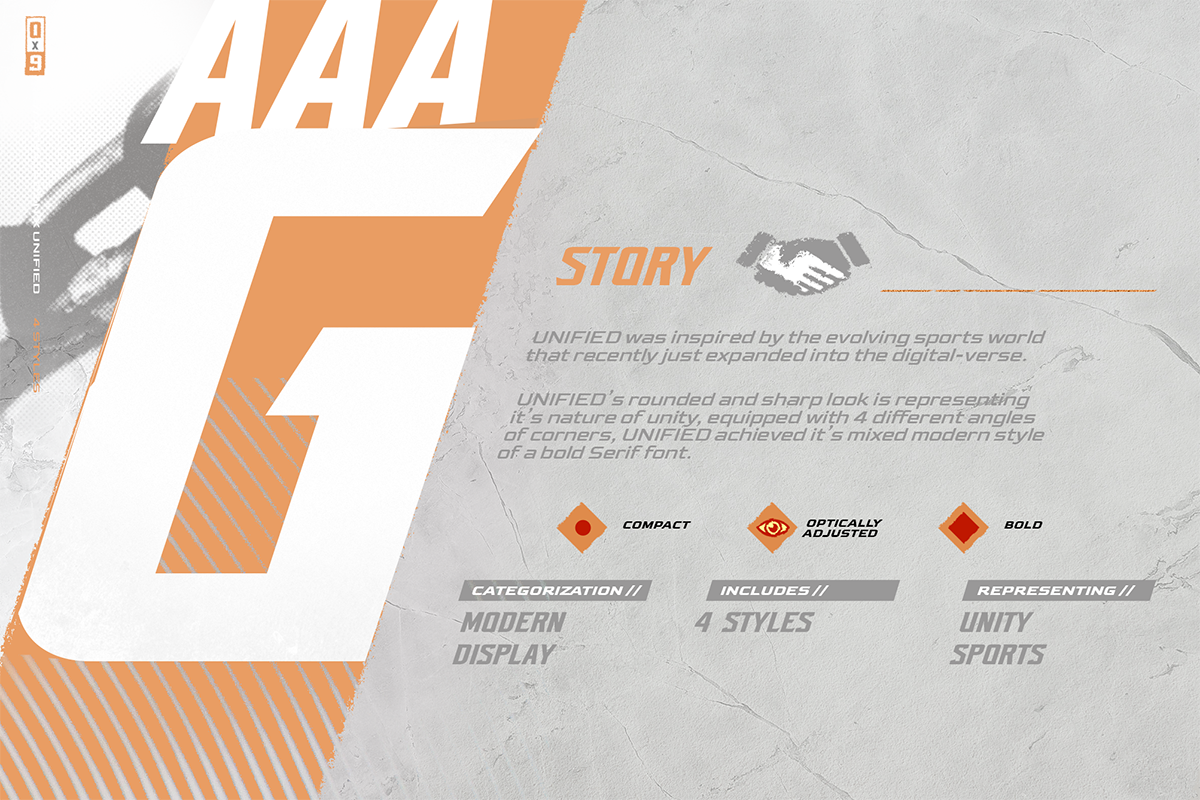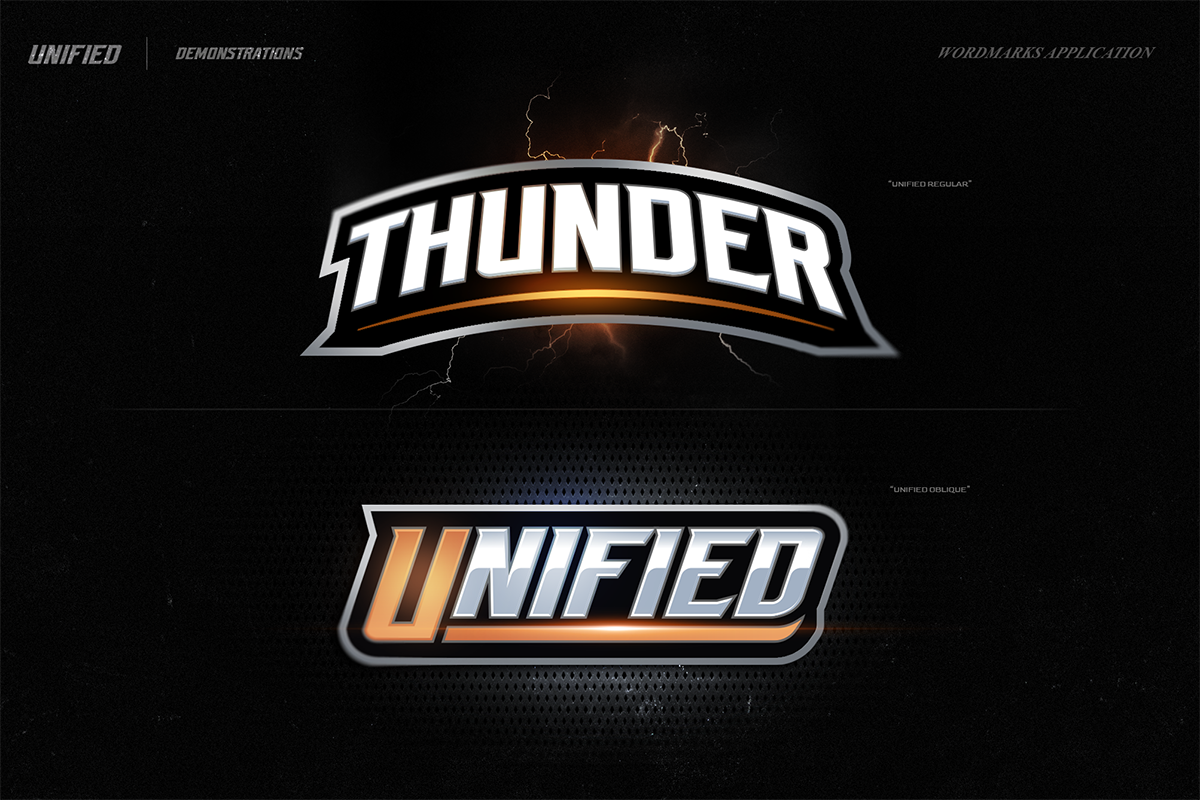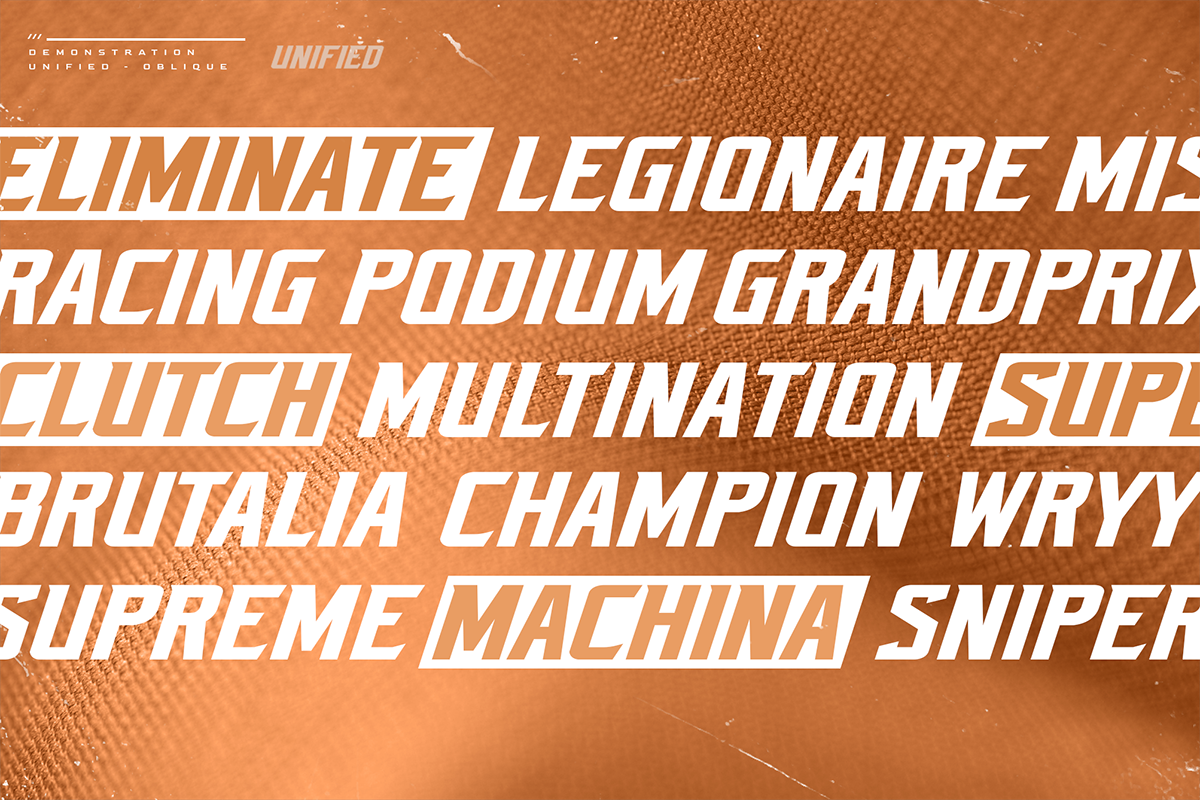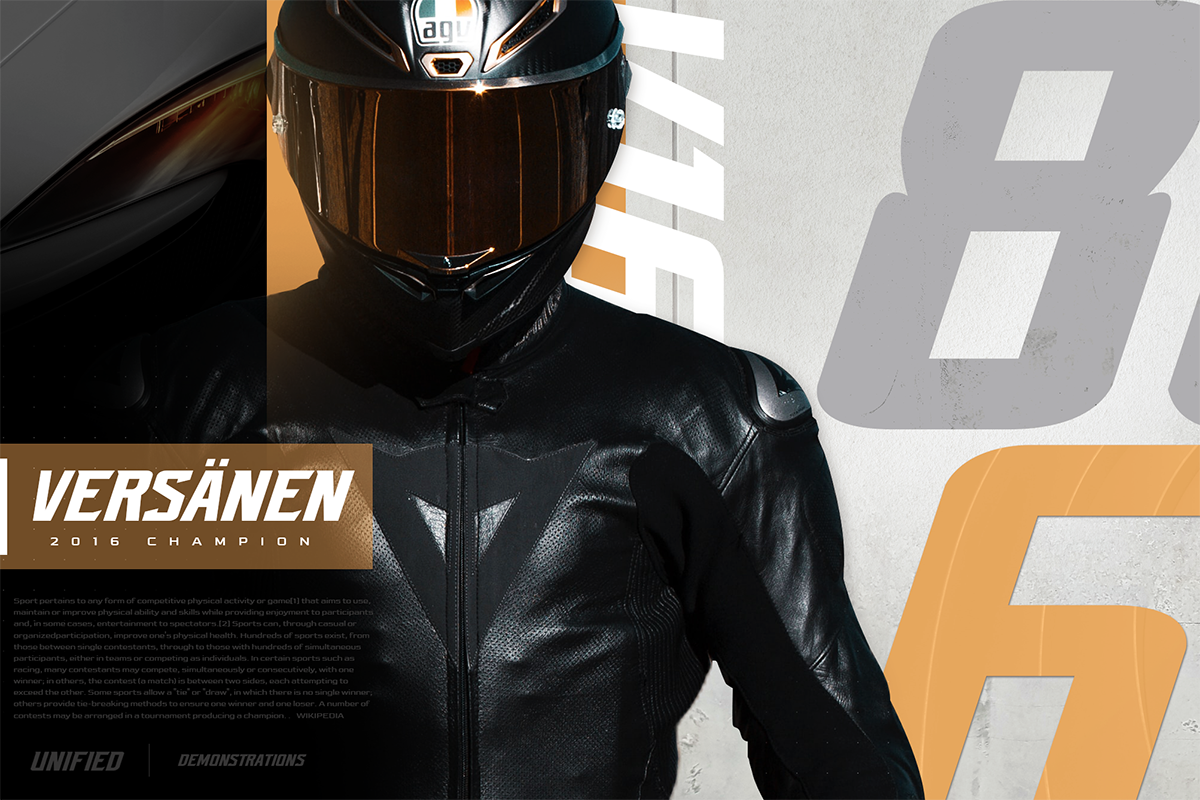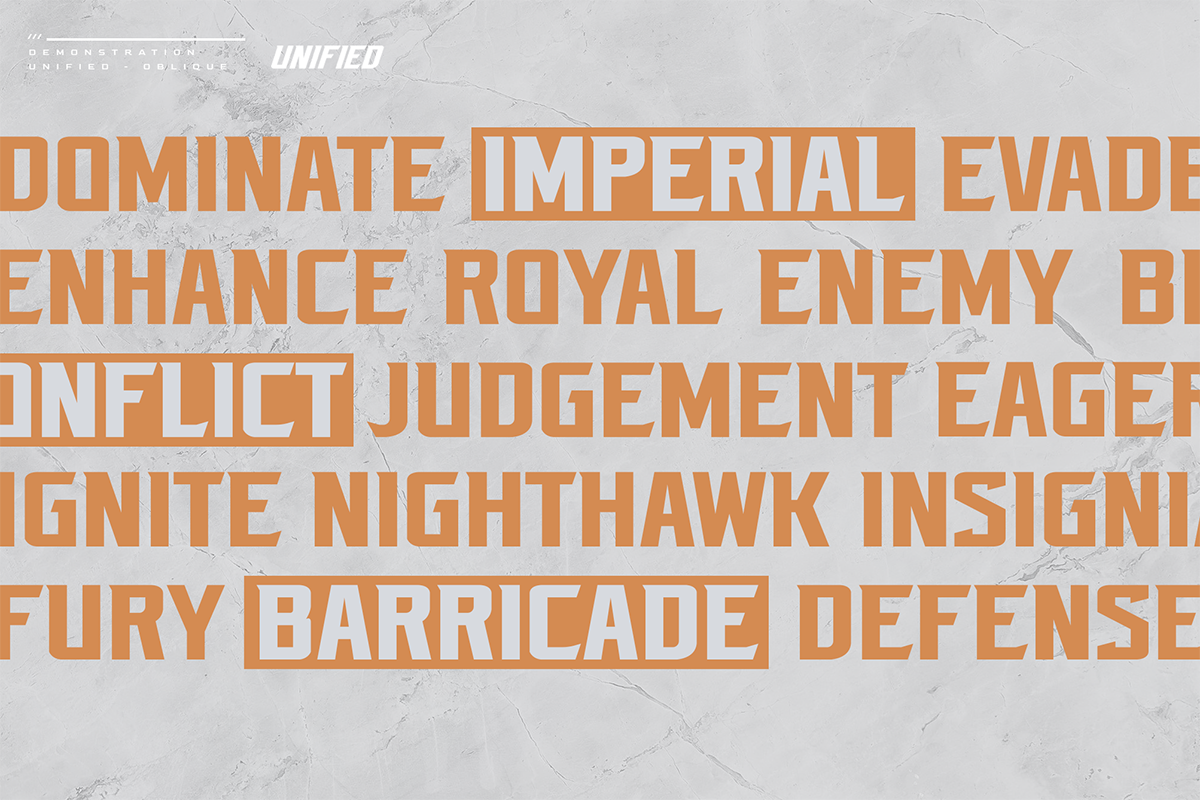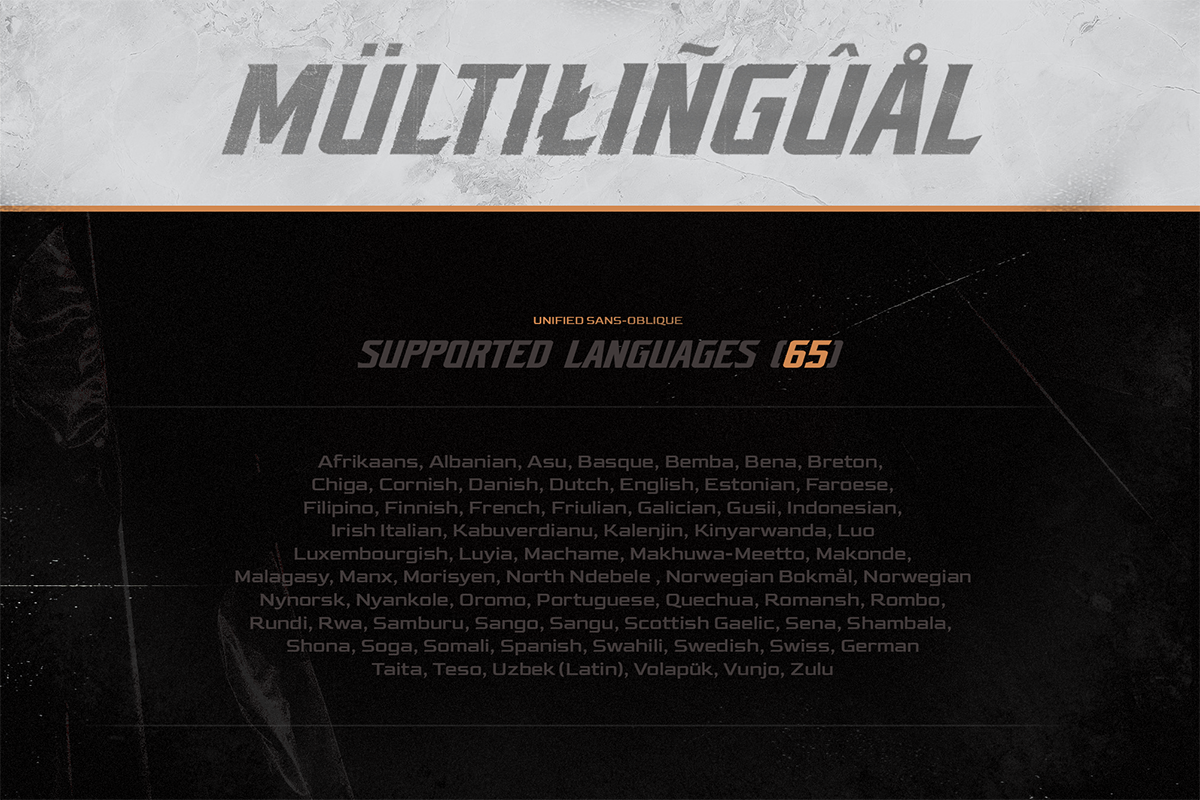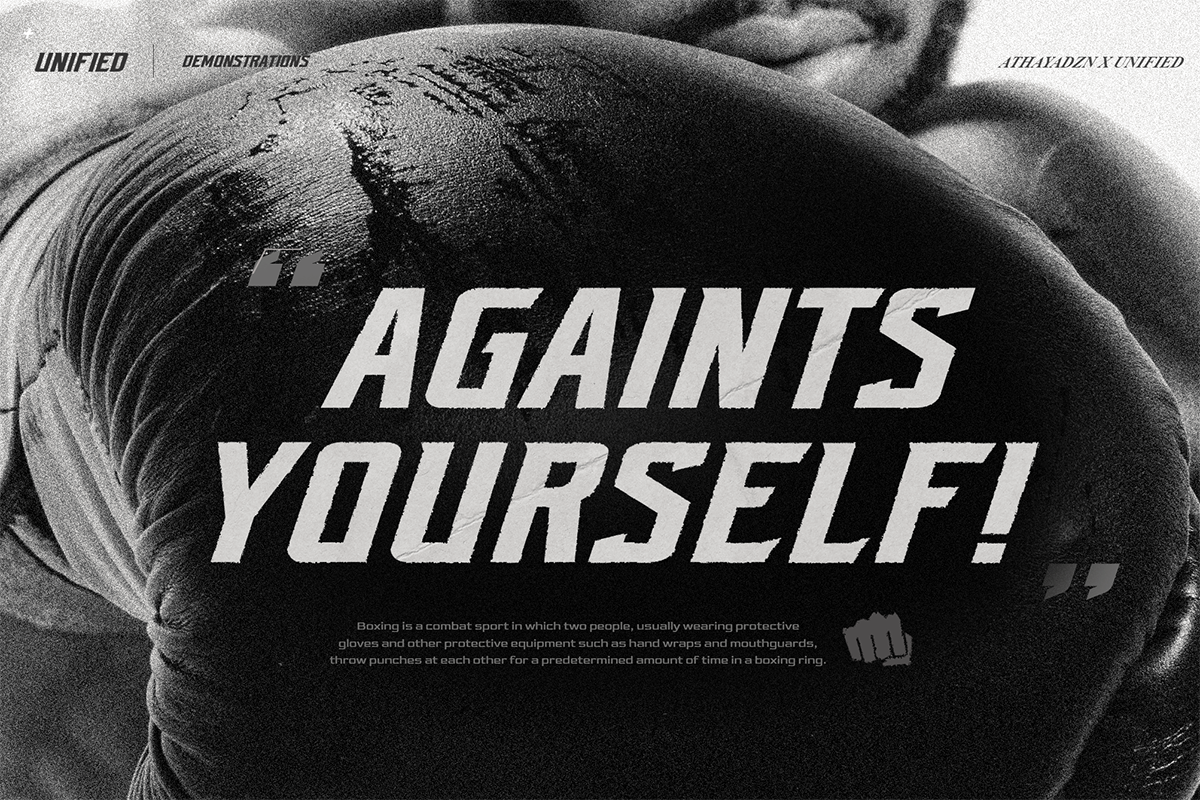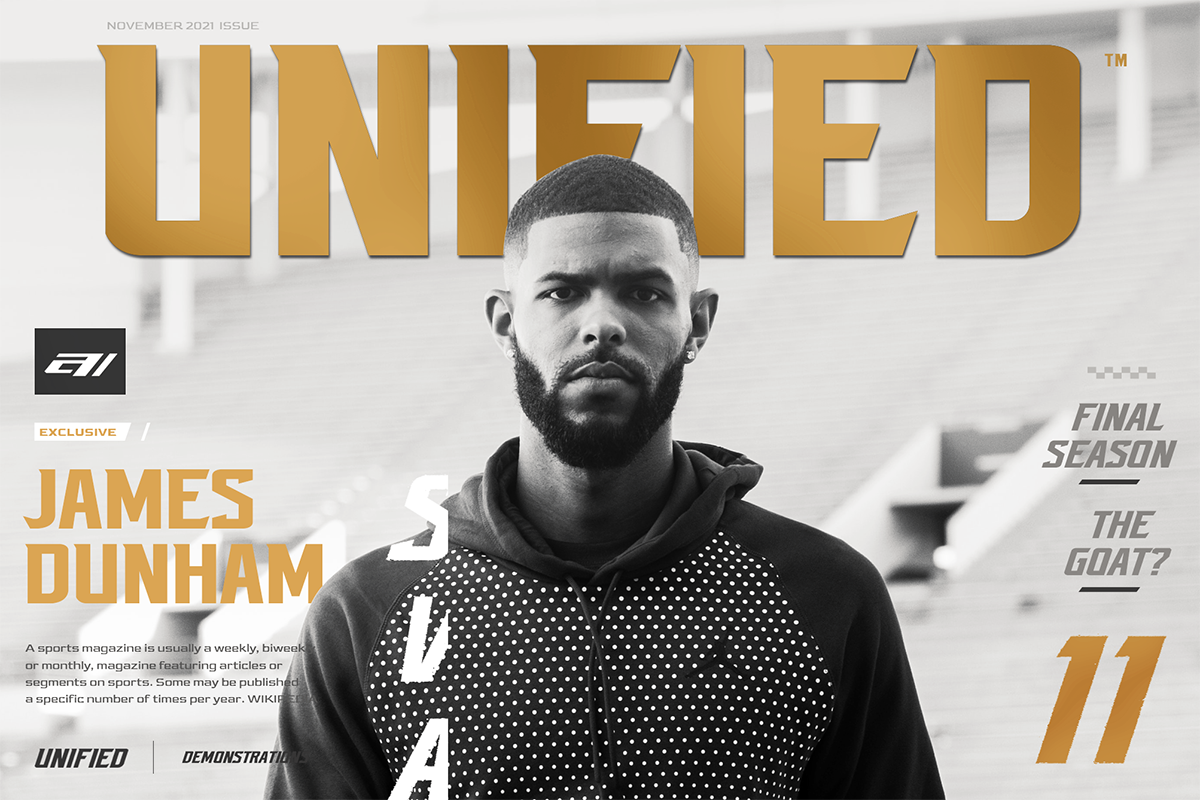
AZN Unified
Introducing "AZN Unified" font by AthayaDZN. UNIFIED was inspired by the evolving sports world that recently just expanded into the digital verse.
UNIFIED’s rounded and sharp look is representing its nature of unity, equipped with 4 different angles of corners, UNIFIED achieved its mixed modern style of a bold serif font.
- Unified Regular
- Unified Oblique
- Unified Sans-Regular
- Unified Sans-Oblique